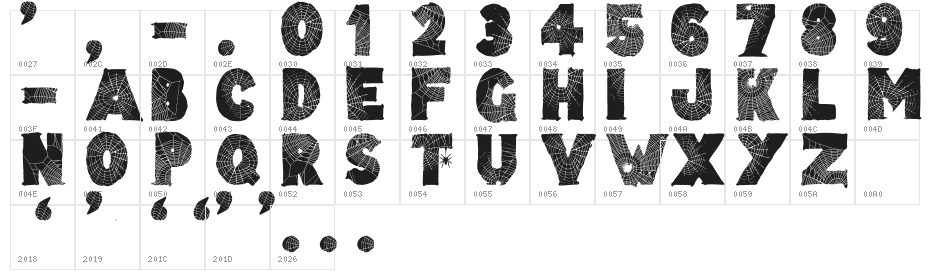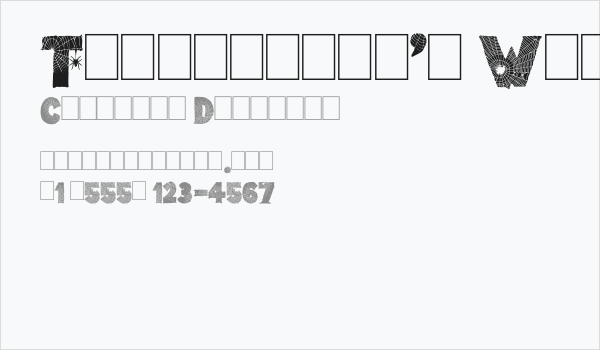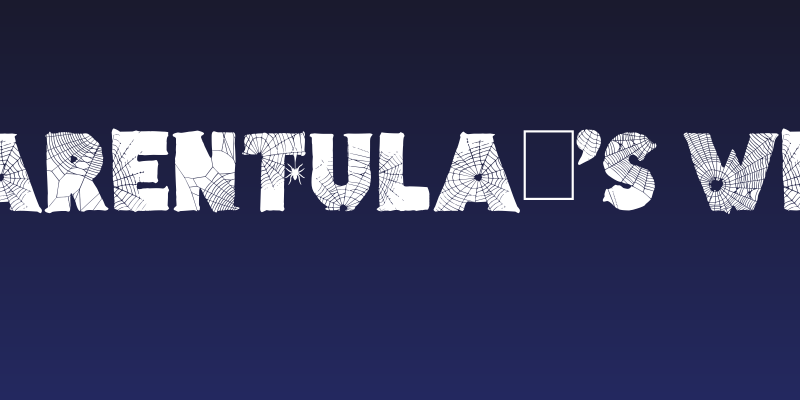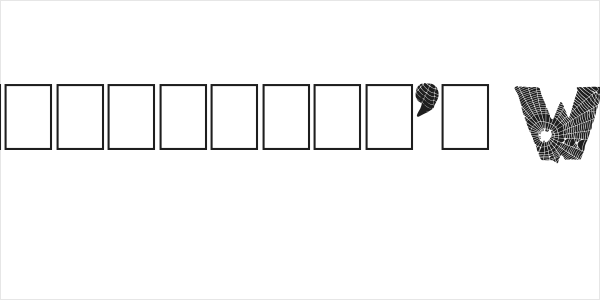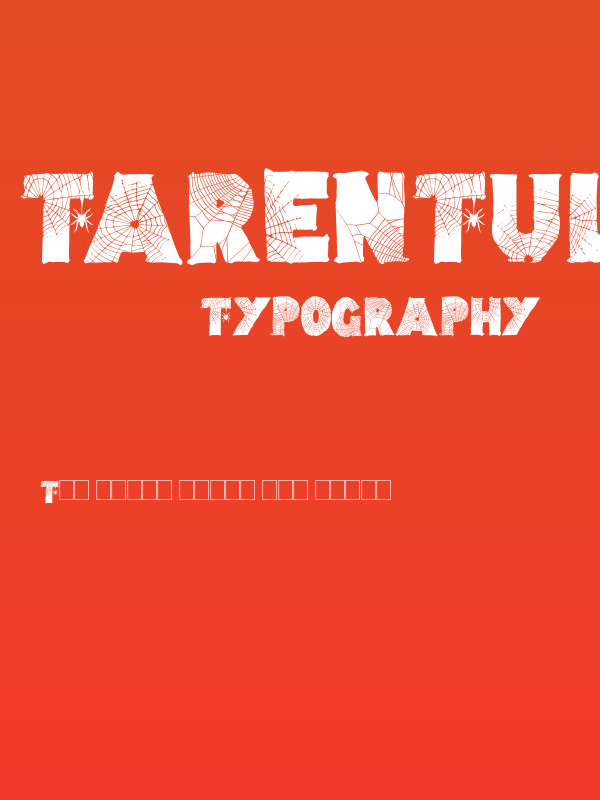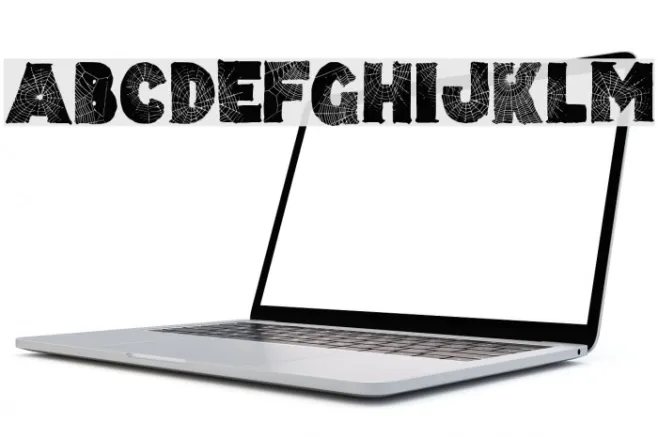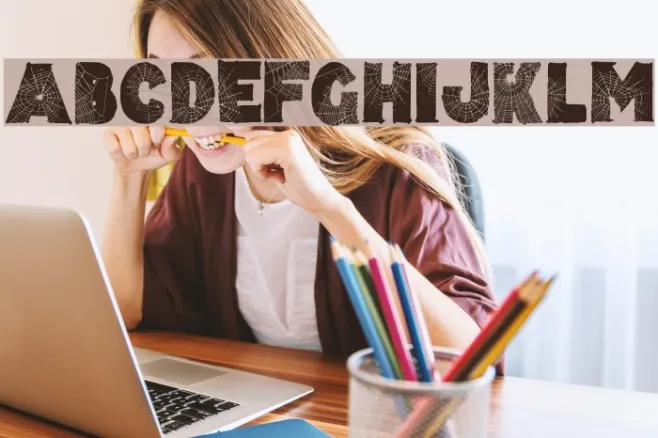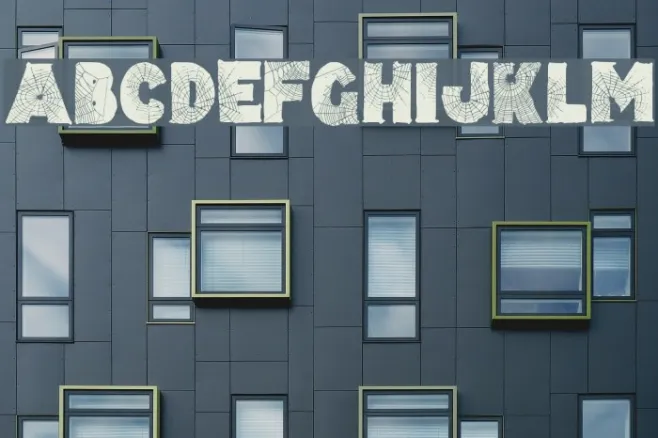
Tarentula's Web Font
Tarentula's Web Description
This font features a unique and spooky design, with each character intricately woven with web-like patterns. The bold, uppercase letters are filled with detailed spider web motifs, giving them a textured and eerie appearance. The numbers follow the same design, making them stand out with their intricate detailing. This font is perfect for Halloween-themed projects or any design that requires a touch of the macabre. The overall look is both decorative and thematic, capturing attention with its distinctive style.
| Proposed Projects | Perfect for Halloween invitations, horror movie posters, themed party decorations, and spooky event branding. |